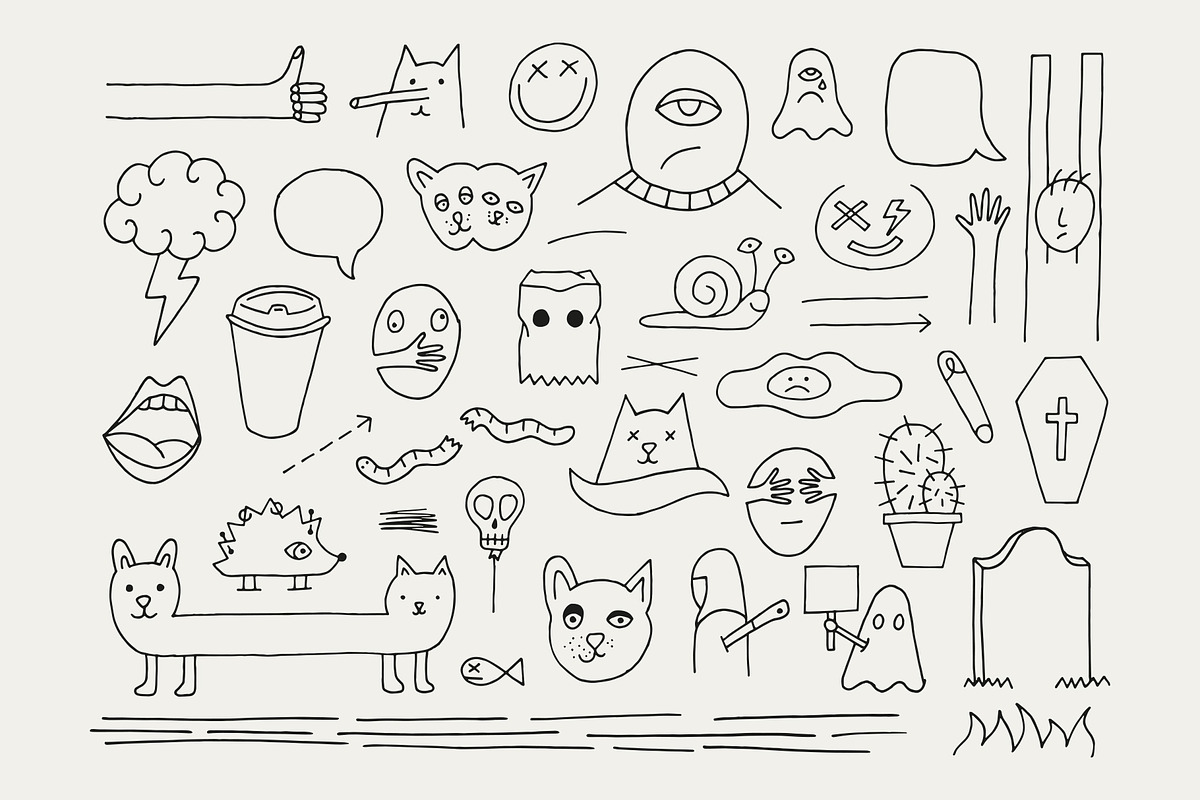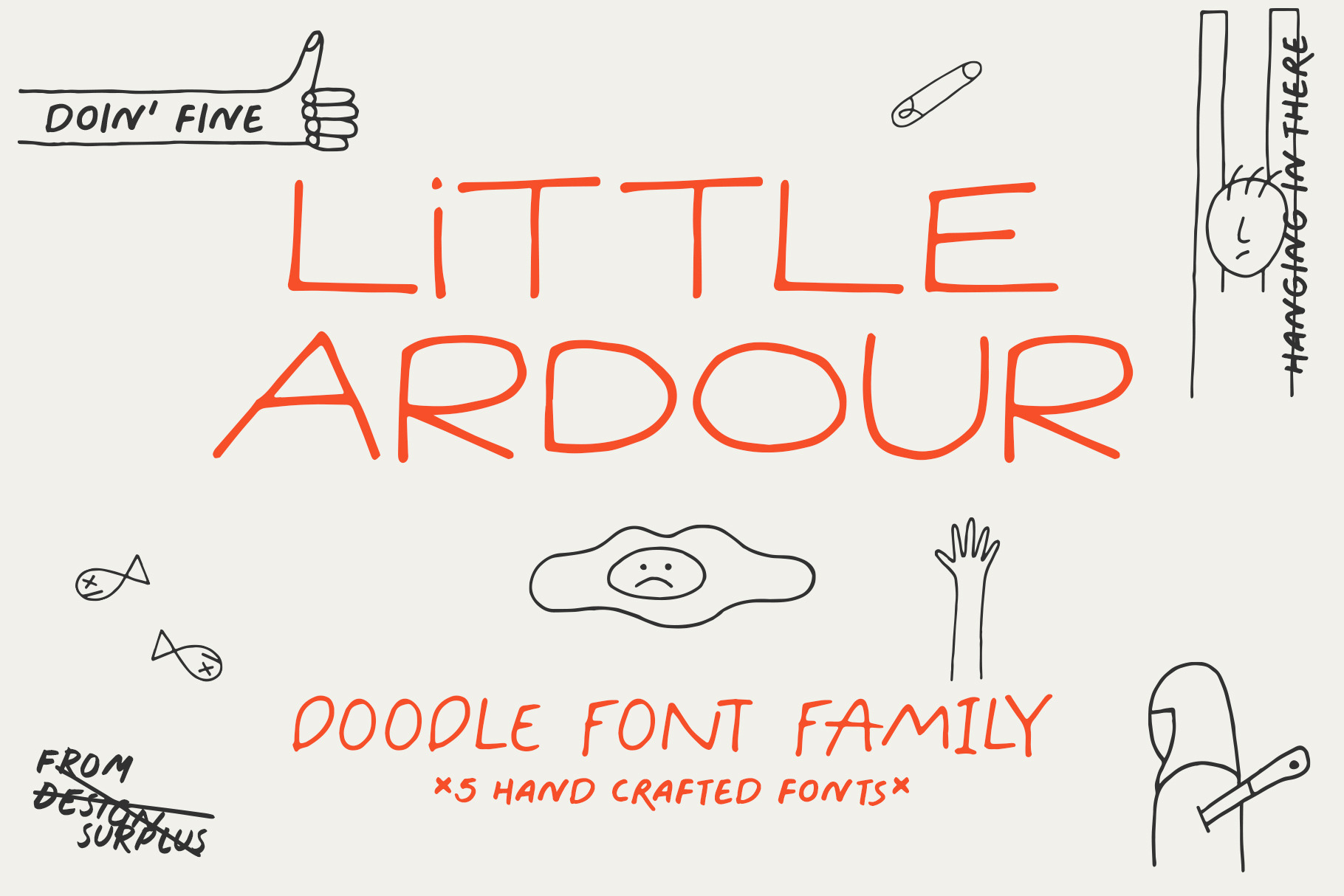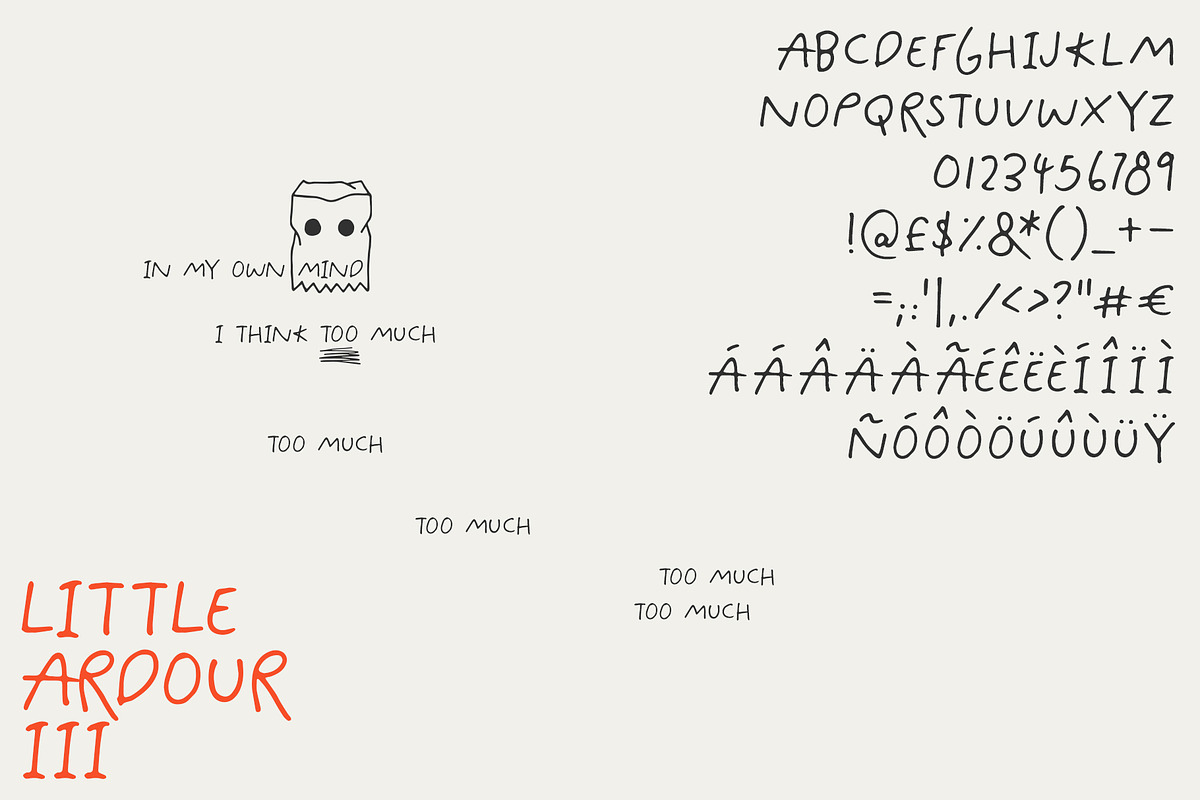
Little Ardour Font Family + Icons
Little Ardour is a 5 font family (otf) with a selection of bonus icons (Ai and PSD). Doodle your feelings, desires and fears with the help of some cute cats, sad ghosts and a punk hedgehog. Each of the 5 fonts are hand drawn with pencil, pen or brush.
- Little Ardour I
- Little Ardour II
- Little Ardour III
- Little Ardour IV
- Little Ardour V
- 40 hand drawn bonus icons!